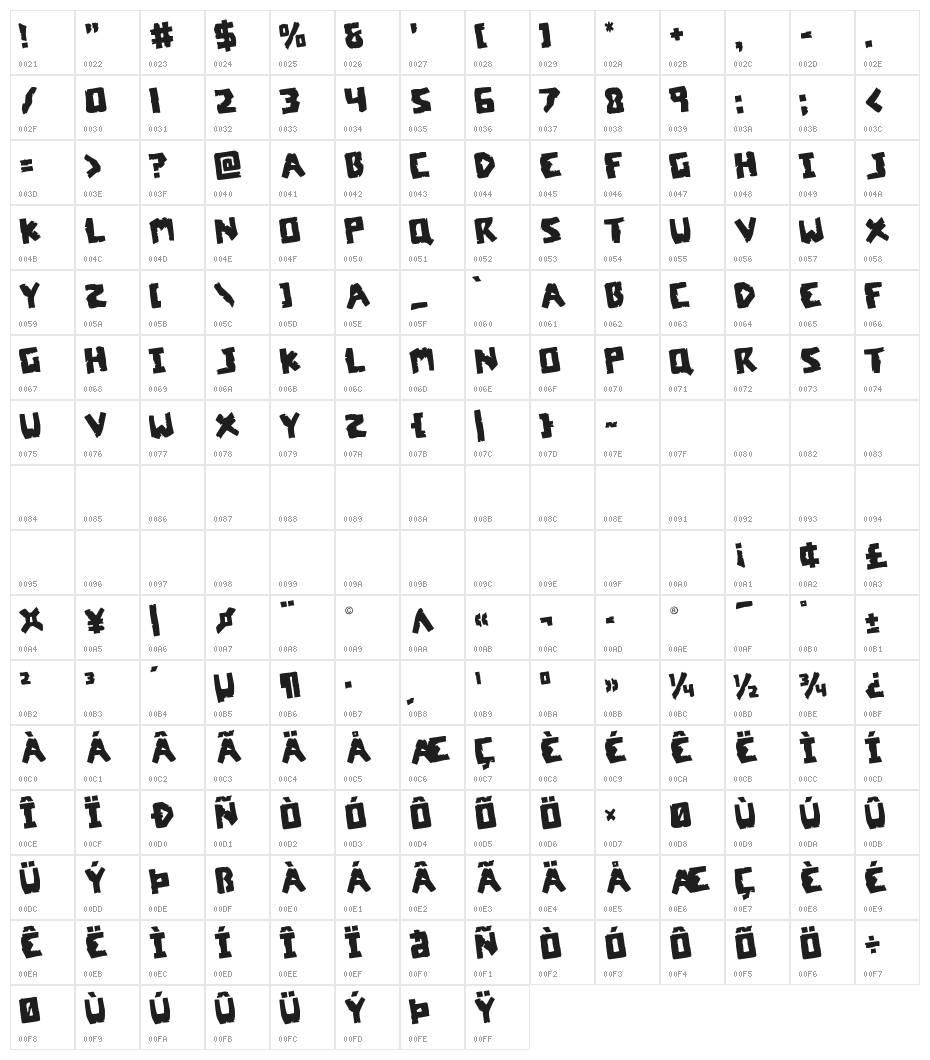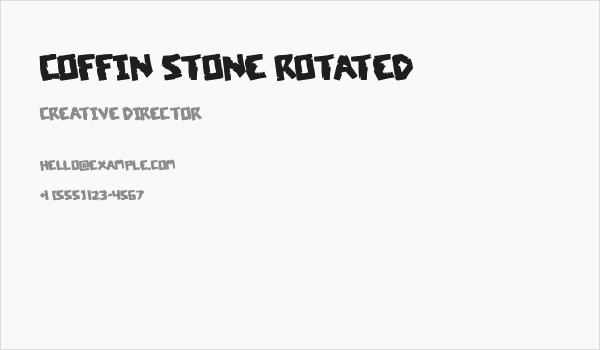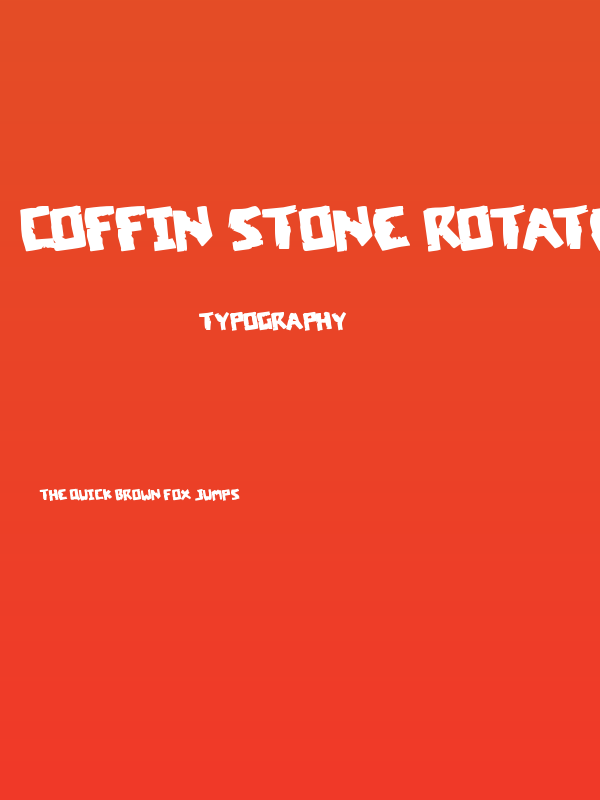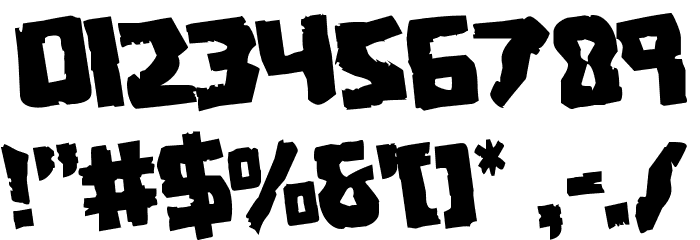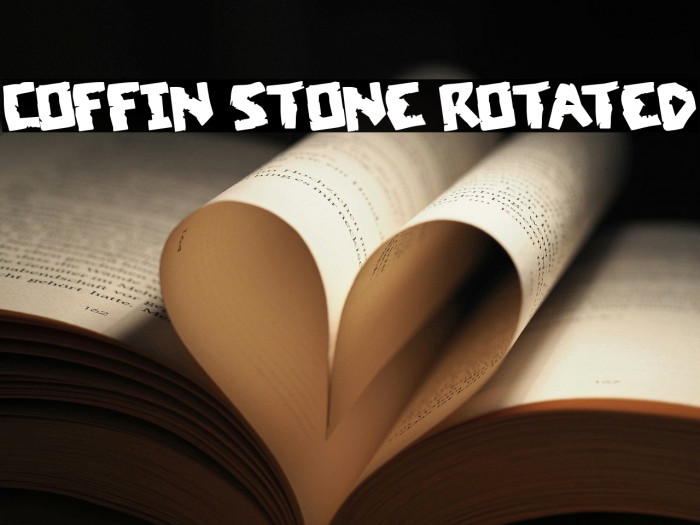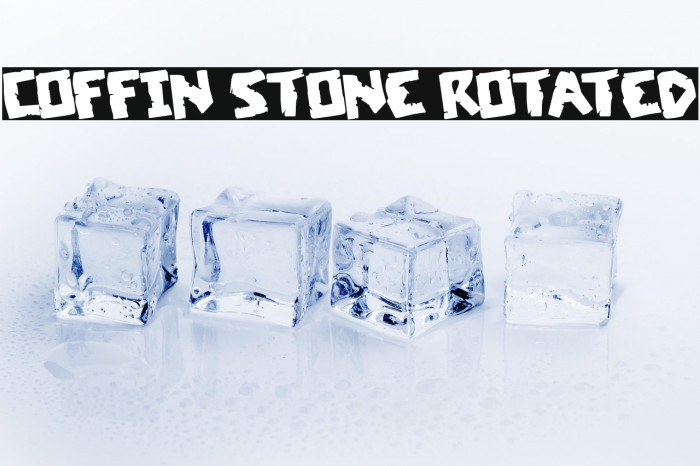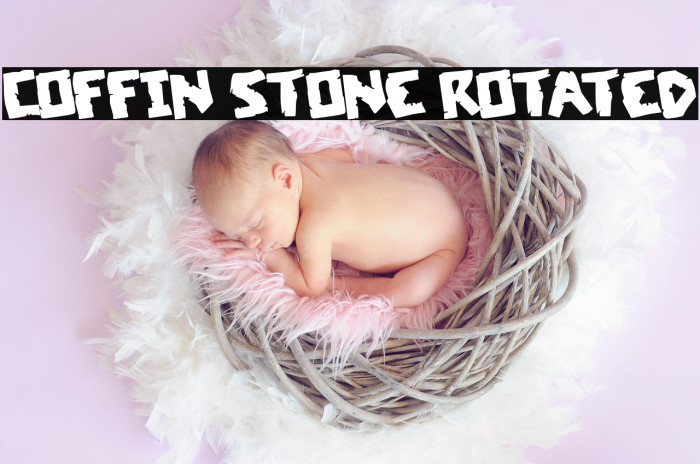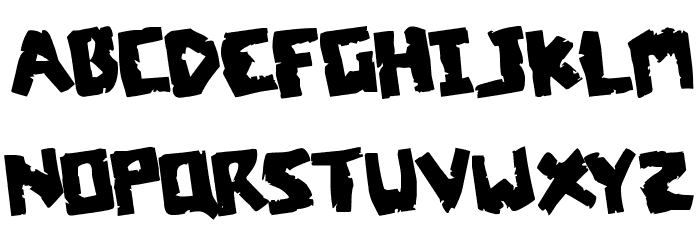
Coffin Stone Rotated Font
Coffin Stone Rotated Description
This font features a bold, rugged style with a distressed appearance, reminiscent of stone carvings or graffiti. The characters are irregular and jagged, giving them a raw and edgy feel. The uppercase and lowercase letters maintain a consistent weight, contributing to a cohesive look. Numbers and special characters follow the same design ethos, ensuring uniformity across all glyphs. The font's unique aesthetic makes it stand out, ideal for projects that require a strong visual impact. Its rough texture and bold presence make it suitable for creative and unconventional designs.
| Overall Style | Edgy, Urban, Distressed |
| Proposed Projects | Ideal for album covers, posters, street art designs, and video game graphics. |